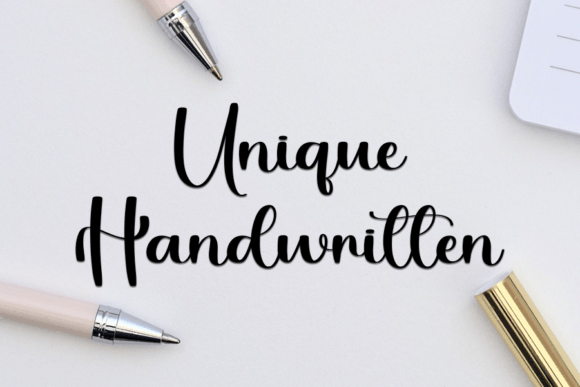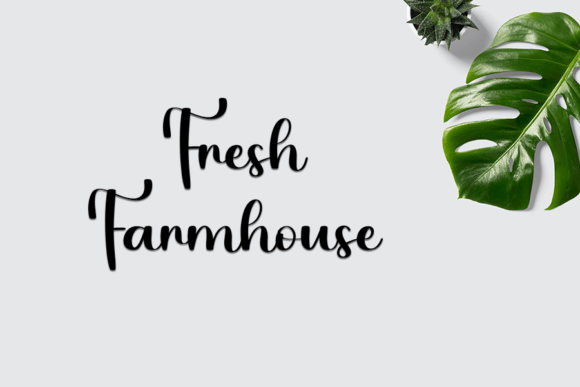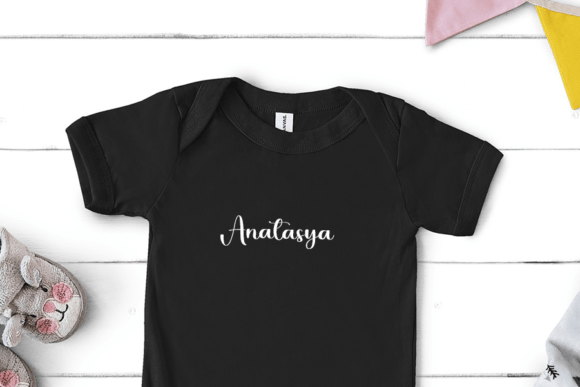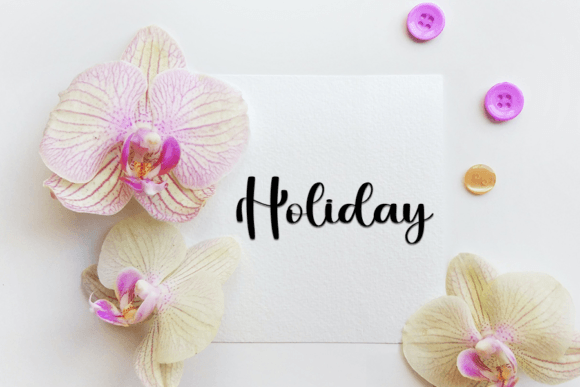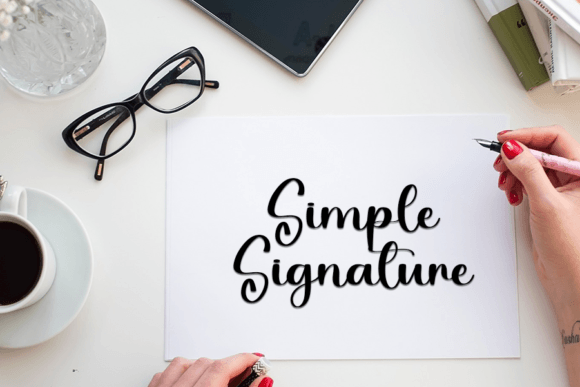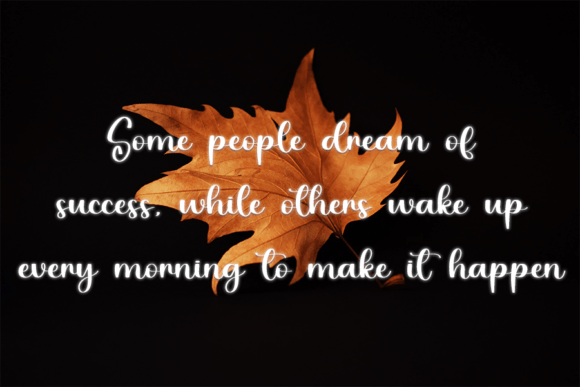
The Quest for the Perfect Font: Discovering Anatasya
Ah, the eternal struggle of finding the perfect font for your design project! I recall a particularly frustrating moment when I was working on a branding project for a client. I had spent hours scouring font libraries, but nothing seemed quite right. That was until I stumbled upon Anatasya, a cool handwritten font that instantly elevated my design. In this article, I’ll share my experience with Anatasya, its features, and how to make the most of it in your projects.
A First Impression: What I Love About Anatasya
Anatasya is a modern, handwritten font that exudes a sense of sophistication and elegance. Here are some of the things I love about it:
- ✨ Balanced and varied: Anatasya strikes the perfect balance between being too thin or too thick, making it versatile for various design applications.
- ✅ Spotless form: The font’s clean lines and curves make it easy to read and visually appealing.
- 💫 Inspired by classic calligraphy: Anatasya’s roots in traditional calligraphy give it a timeless feel that’s hard to resist.
An Honest Review: A Few Quirks to Consider
While Anatasya is an excellent font, it’s not without its limitations. Here are a few things to keep in mind:
- 🤔 Limited multilingual support: Anatasya’s character set, while extensive, might not cover all languages or special characters.
- ⚠️ Requires OpenType support: To take full advantage of Anatasya’s features, you’ll need to use software that supports OpenType fonts.
The Story Behind Anatasya: Designer Inspiration
Anatasya’s creator aimed to craft a font that would blend modernity with classic elegance. Inspired by traditional calligraphy, the designer sought to create a font that was both beautiful and functional. The result is Anatasya, a font that’s perfect for a wide range of design projects, from branding and advertising to packaging and digital media.
| What is Anatasya’s primary design inspiration? | Anatasya is inspired by classic calligraphy, blended with a modern, handwritten feel. |
| Is Anatasya suitable for body text? | While Anatasya is beautiful, it’s best suited for headlines, titles, or short paragraphs. For longer body text, a more traditional font might be more readable. |
| Does Anatasya support OpenType features? | Yes, Anatasya supports OpenType features, including stylistic alternates and glyphs, which can enhance your design. |